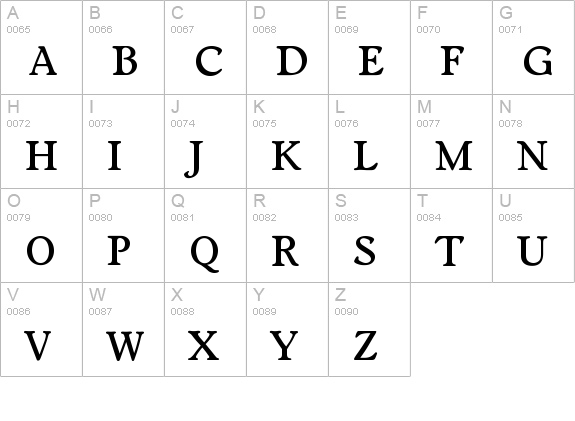
Worchester-Medium is a balanced, medium-weight variant in the Worchester typeface family \xE2\x80\x94 well suited to sub-headlines, navigation, and balanced editorial work.